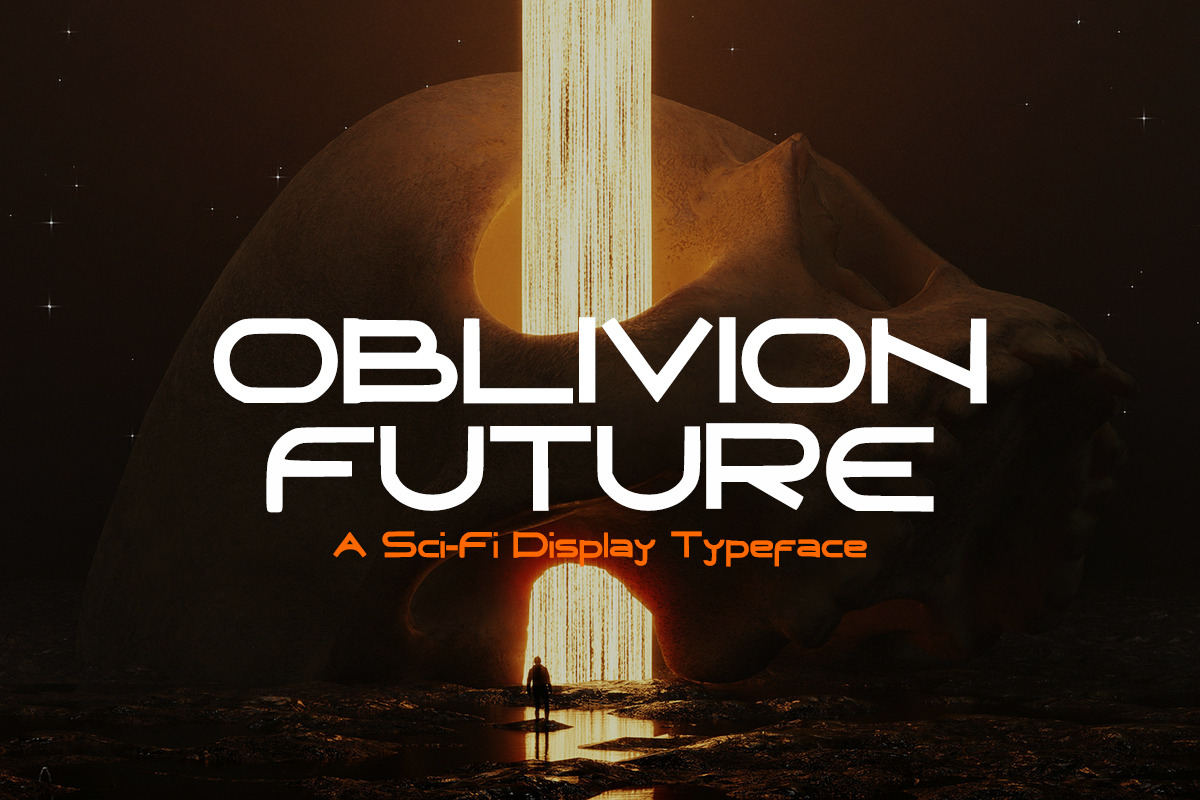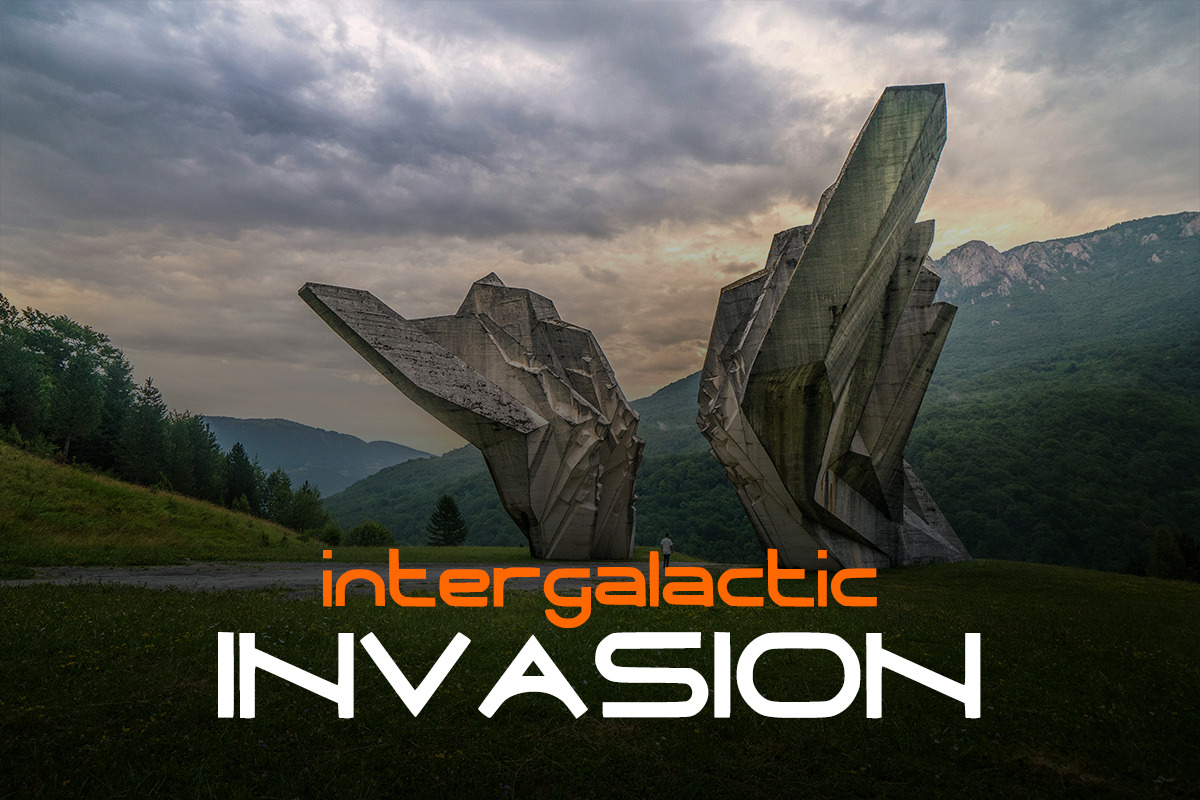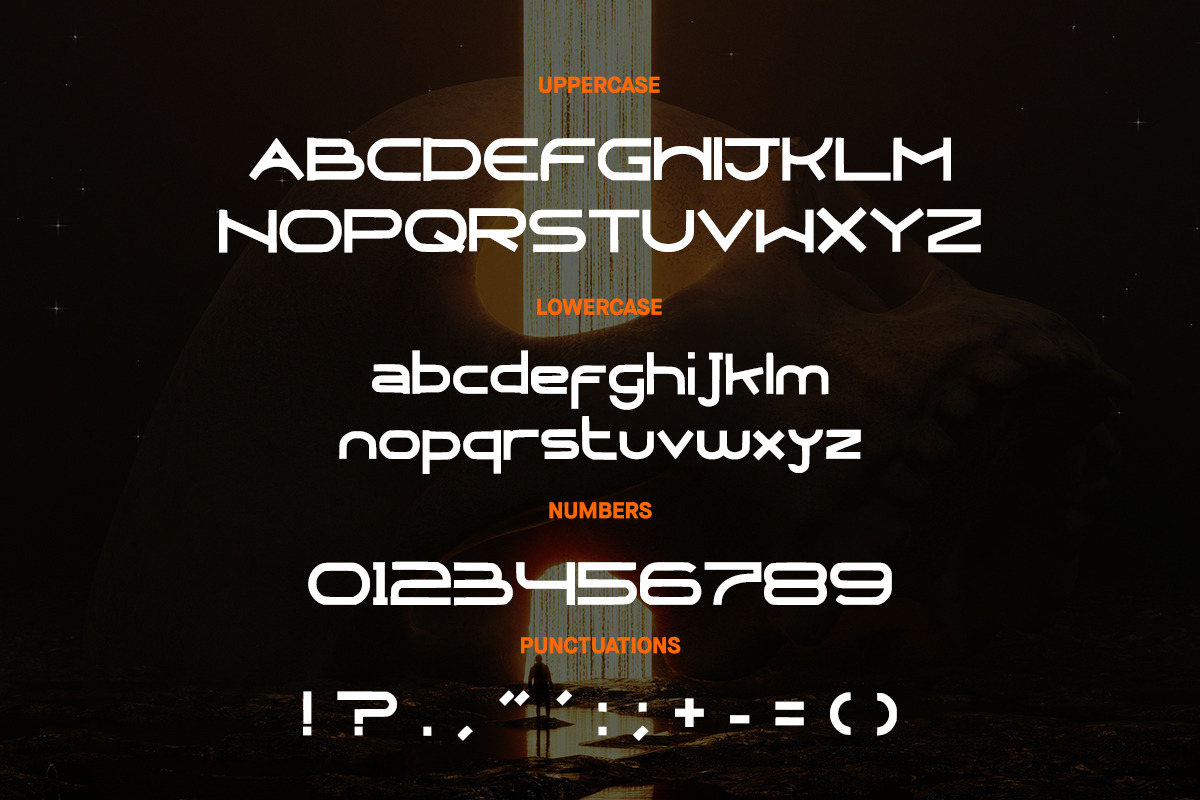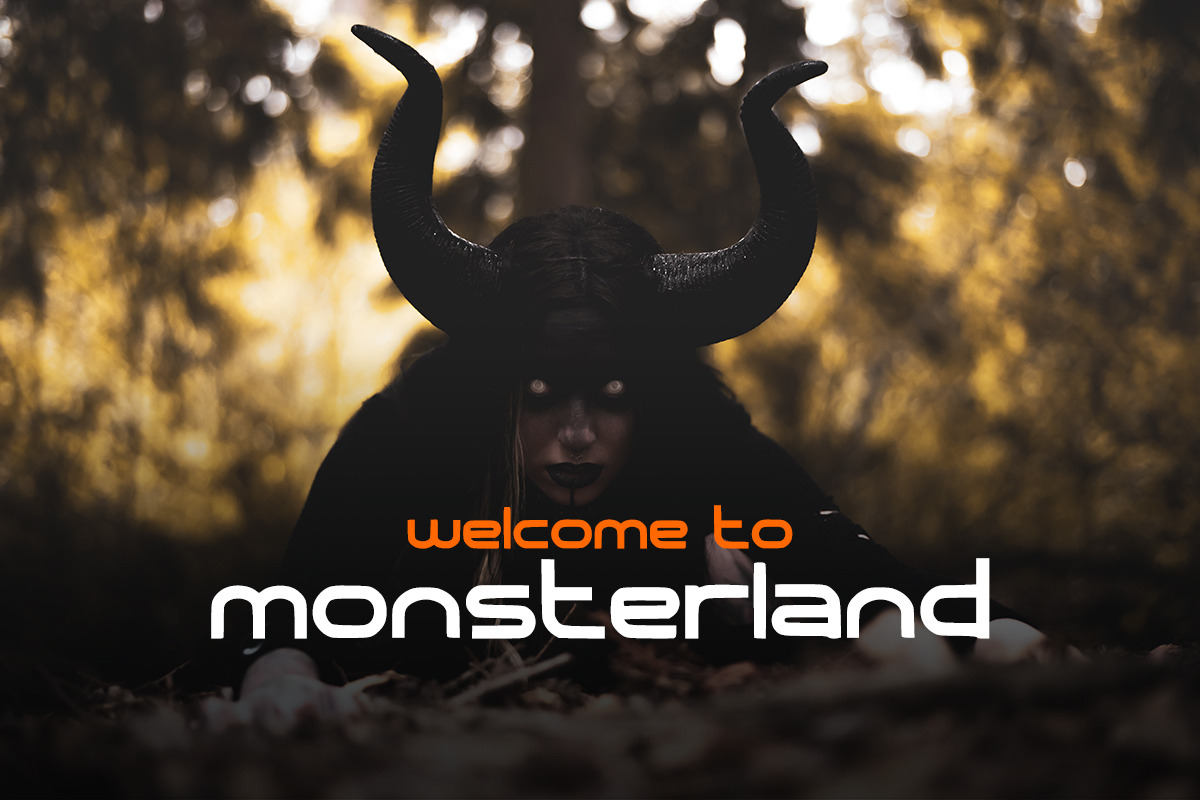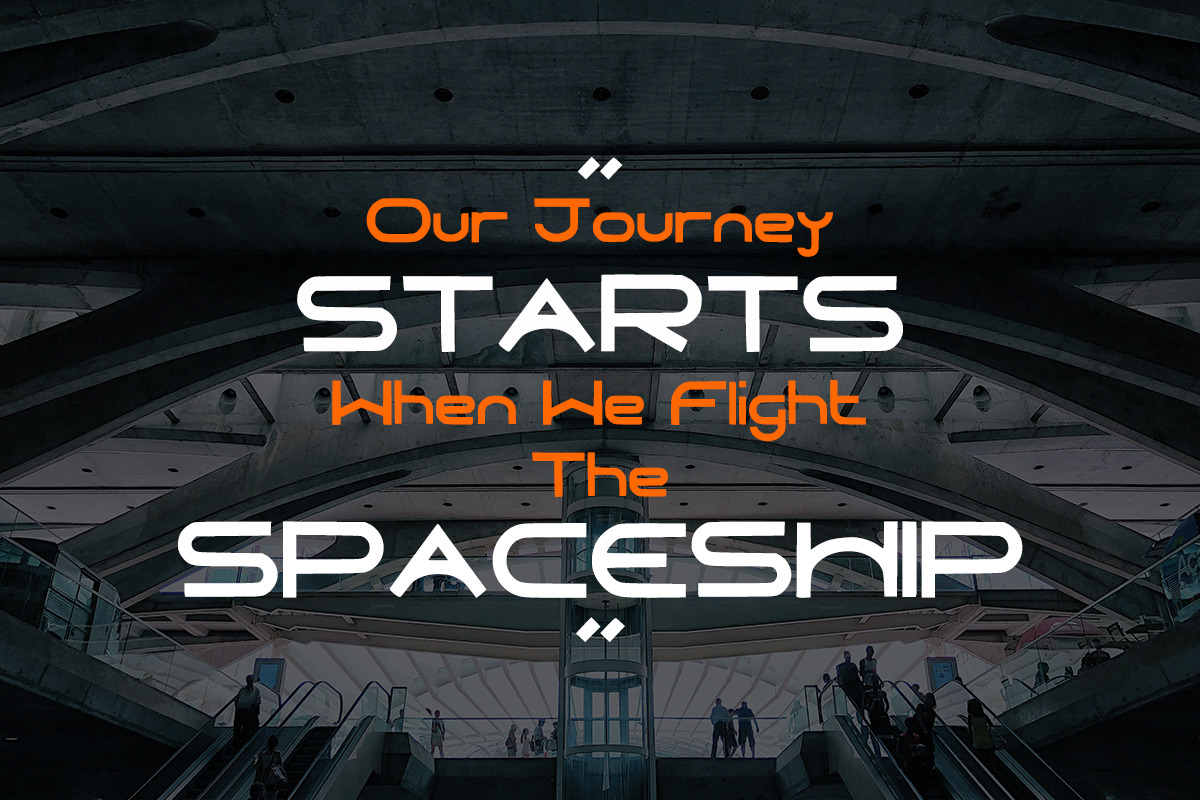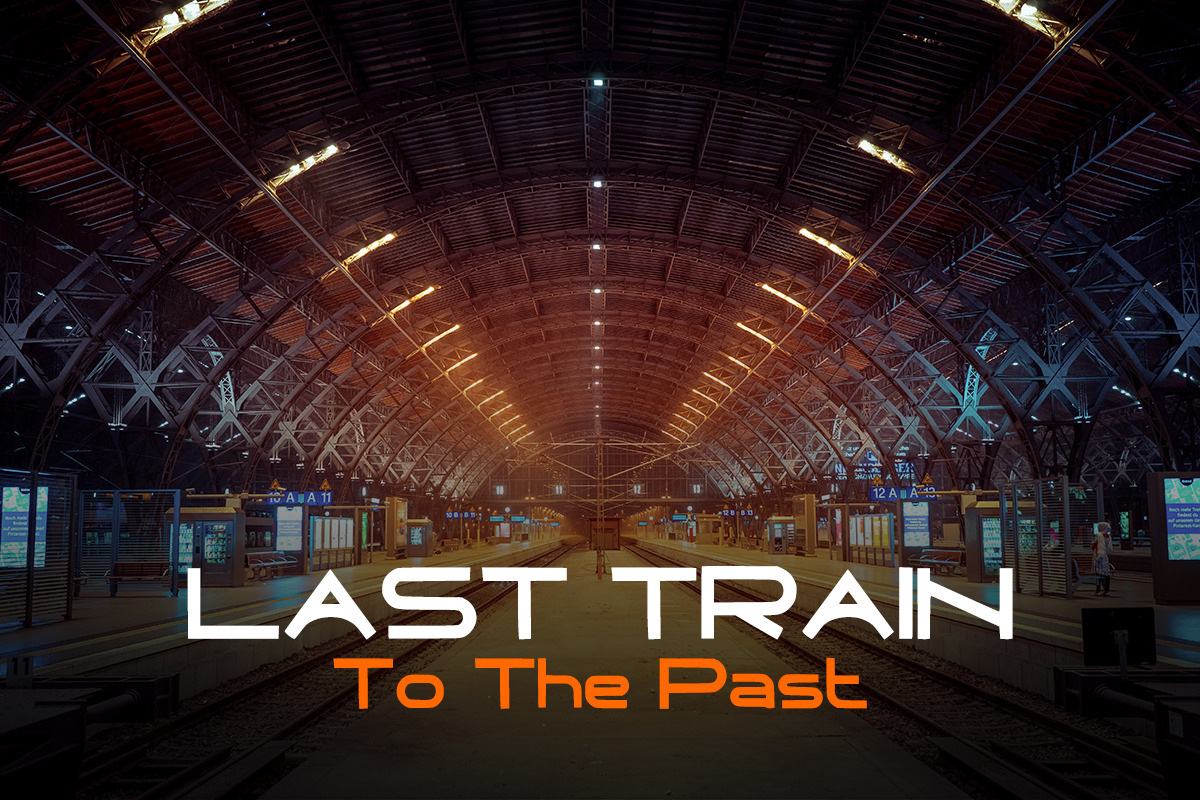
Oblivion Future Sci-Fi Font
Introducing Oblivion Future, a futuristic, sci-fi display font with strong, clean, and elegant vibes. Use it for logos, CD covers, book cover titles, movie posters, games, animations, clothing, badges, labels, etc. Oblivion Future contains: uppercase, lowercase, numbers, and punctuation